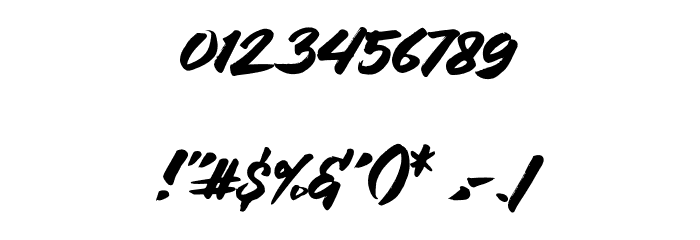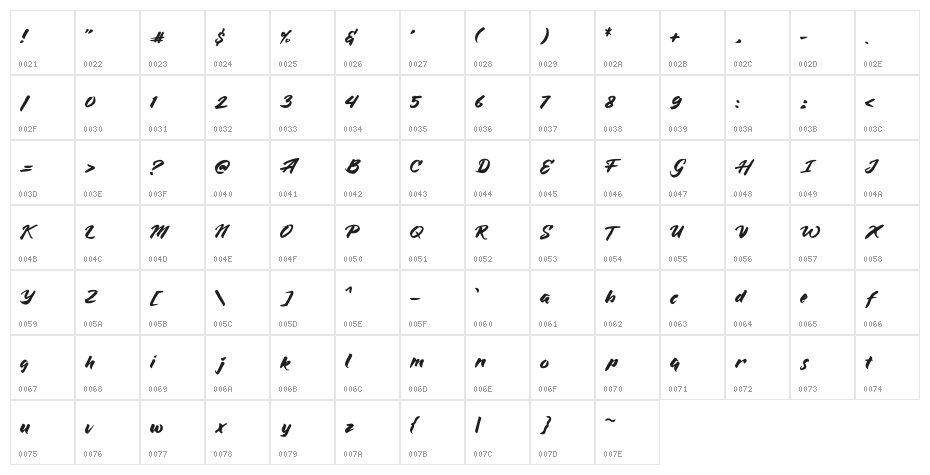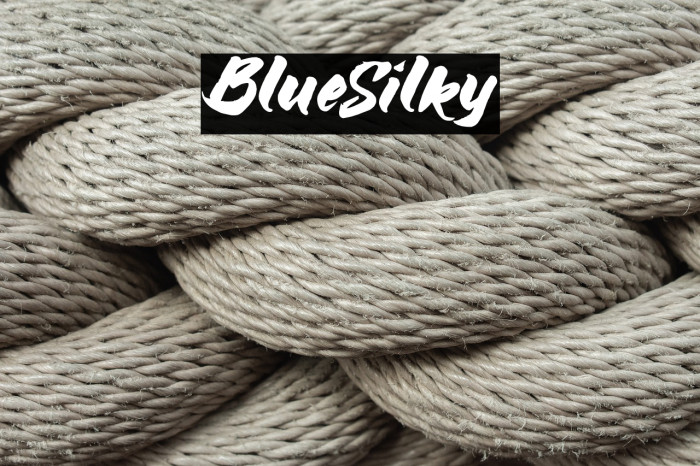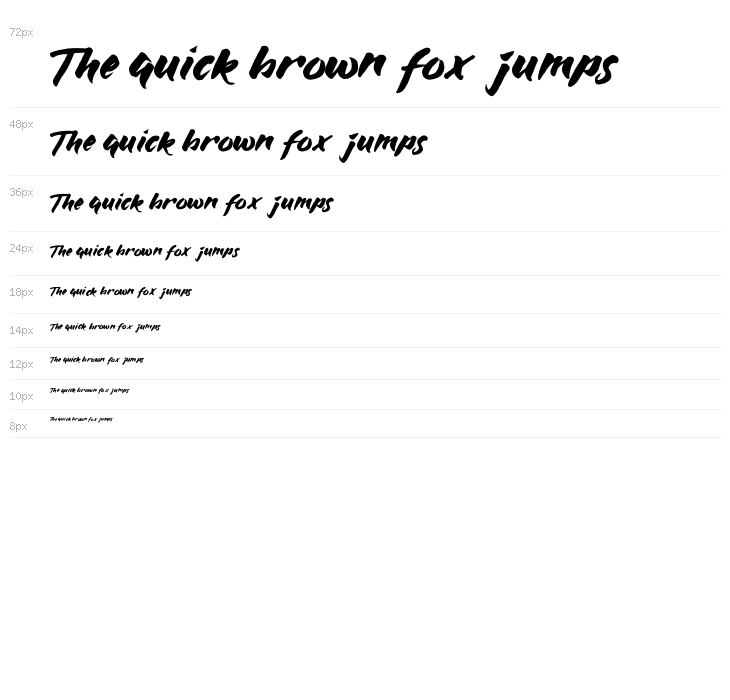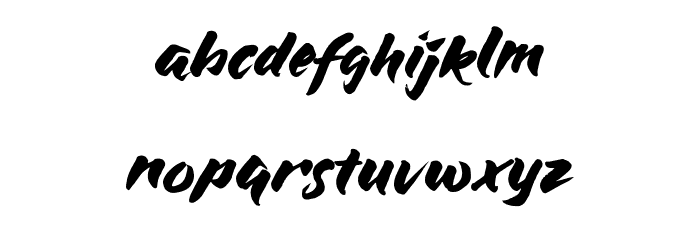
BlueSilky Font
BlueSilky Description
This font exhibits a bold and expressive script style, characterized by its fluid and dynamic strokes. The letters are connected in a cursive manner, giving it a handwritten appearance. The uppercase letters are particularly striking, with sweeping curves and a sense of motion. The lowercase letters maintain a consistent flow, complementing the uppercase with their rounded forms. Numbers and special characters are designed to match the overall aesthetic, ensuring a cohesive look. The font's energetic and artistic nature makes it suitable for creative projects.
| Use Case | Logos, Headlines, Artistic projects |
| Proposed Projects | Ideal for branding, invitations, greeting cards, and artistic designs. |